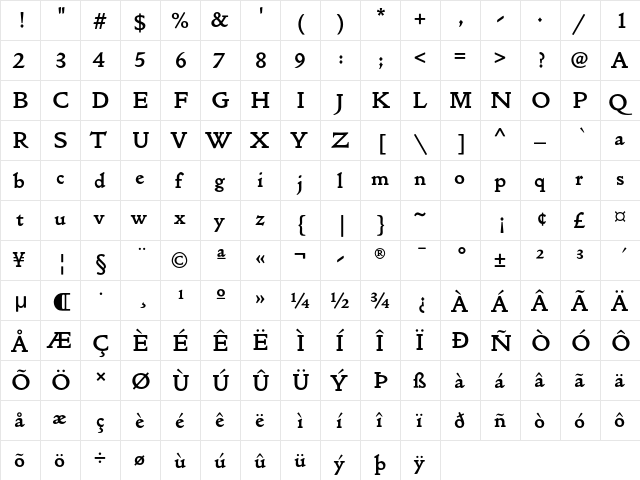
Golden Type ITC Std Bold
| Designer | Sigrid Engelmann, Helga Jorgensen and Andrew Newton. |
Design Context for Golden Type ITC Std Typeface
Golden Type ITC Std takes a measured approach to typography — its balanced proportions and neutral character make it a reliable workhorse for both digital and print work. Its bold stroke weight gives it real presence on the page.